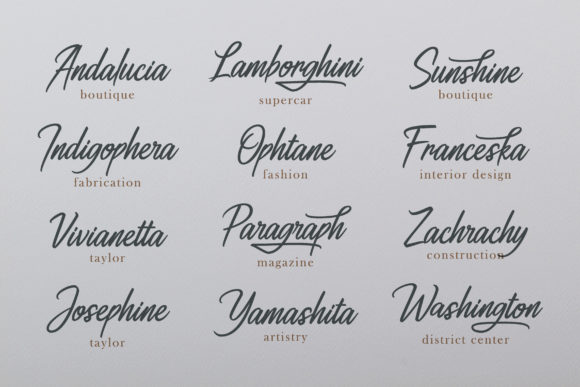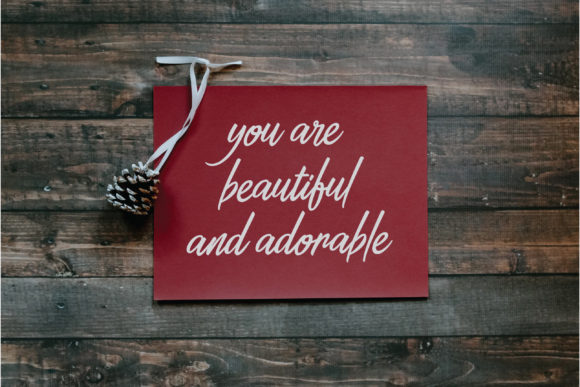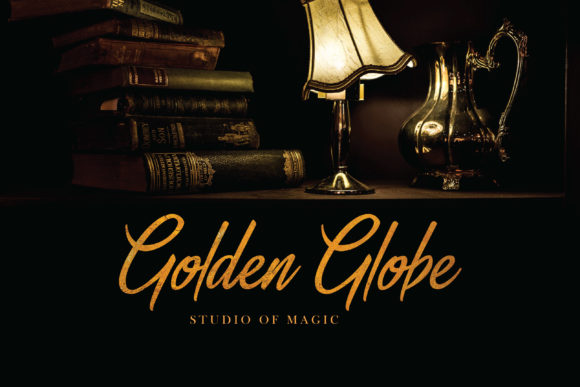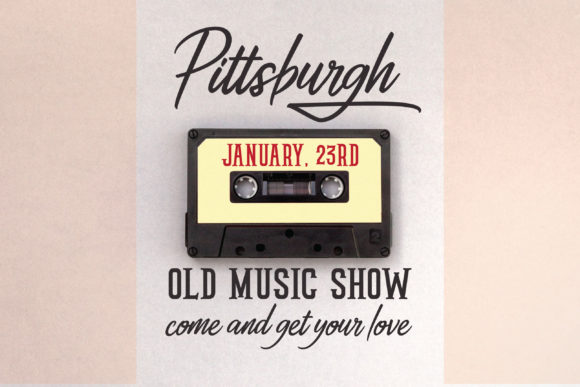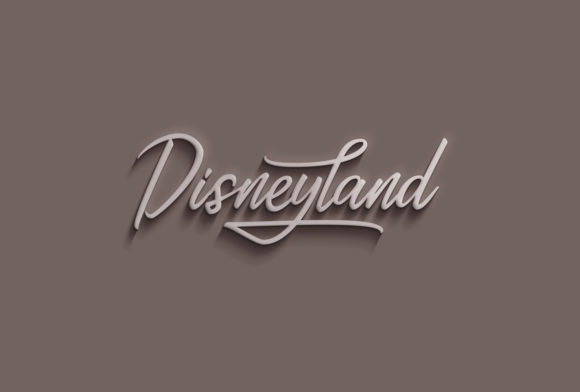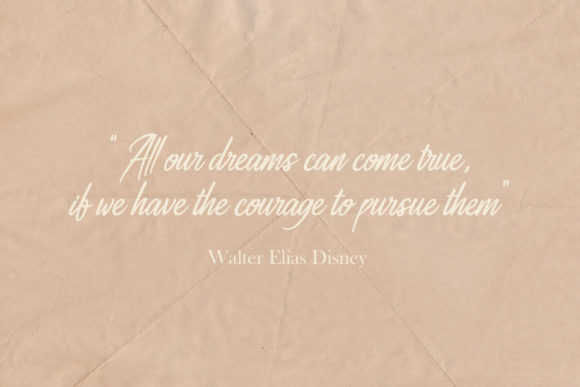
Ahtohalland Font: Elevate Your Design with Elegance and Authenticity
In the realm of typography, few fonts manage to capture the essence of elegance and authenticity as effortlessly as the Ahtohalland Font. This exquisite script font has been making waves in the design community, and for good reason. Ahtohalland is an elegant and beautiful script font that’s great for adding that authentic vibe to your next design project. Whether you’re a seasoned designer or a crafting enthusiast, Ahtohalland offers a unique blend of sophistication and charm that can elevate your work to new heights.
The Origins of Ahtohalland Font
The Ahtohalland Font boasts a rich history, with its design inspired by traditional script fonts. The creators aimed to craft a font that not only pays homage to classic typography but also brings a fresh, modern twist to the table. The result is a font that feels both vintage and contemporary, making it incredibly versatile for various design applications.
Key Features of Ahtohalland Font
• Elegant and Beautiful: Ahtohalland’s flowing lines and graceful curves make it a standout in any design. Its elegance is perfect for projects that require a touch of sophistication.
• Authentic Vibe: The font’s classic inspiration ensures that it brings an authentic feel to your designs, making it ideal for projects that aim to evoke a sense of tradition or nostalgia.
• Versatile: Ahtohalland is suitable for a wide range of design projects, from branding and advertising to packaging and personal crafts.
• Easy to Read: Despite its elegant nature, Ahtohalland maintains excellent readability, making it a practical choice for both digital and print designs.
Uses of Ahtohalland Font
The versatility of Ahtohalland Font makes it a valuable addition to any designer’s toolkit. Here are some popular uses for this beautiful script font:
• Branding and Logo Design: Ahtohalland can help create a memorable brand identity with its unique and elegant style.
• Wedding and Event Invitations: The font’s sophisticated look makes it perfect for wedding invitations, event posters, and other formal announcements.
• Packaging Design: Ahtohalland can add a touch of luxury and authenticity to product packaging, helping brands stand out on store shelves.
• Digital and Print Media: Whether it’s for a website, social media graphics, or print advertisements, Ahtohalland brings a level of elegance that can enhance any message.
• Crafting and DIY Projects: Crafters can use Ahtohalland to add a professional and stylish touch to their DIY projects, such as handmade cards, journals, and home decor.
Tips for Using Ahtohalland Font Effectively
To get the most out of Ahtohalland Font, consider the following tips:
• Pair with Complementary Fonts: Use Ahtohalland in combination with simpler fonts to create visual contrast and hierarchy in your designs.
• Adjust Letter Spacing: Fine-tune the letter spacing to ensure optimal readability and aesthetic appeal.
• Experiment with Colors: While Ahtohalland looks stunning in classic black and white, don’t be afraid to experiment with colors that match your brand or design theme.
• Consider the Context: Think about the message you want to convey and adjust the font size, style, and color accordingly to ensure it aligns with your overall design goals.
Ahtohalland Font is a remarkable addition to the world of typography, offering designers and crafters a tool to infuse their projects with elegance and authenticity. Its versatility, readability, and beautiful design make it an excellent choice for a wide range of applications. By incorporating Ahtohalland into your design repertoire, you can create stunning works that leave a lasting impression. So, why settle for ordinary when you can add an authentic and elegant touch to your designs with Ahtohalland Font?